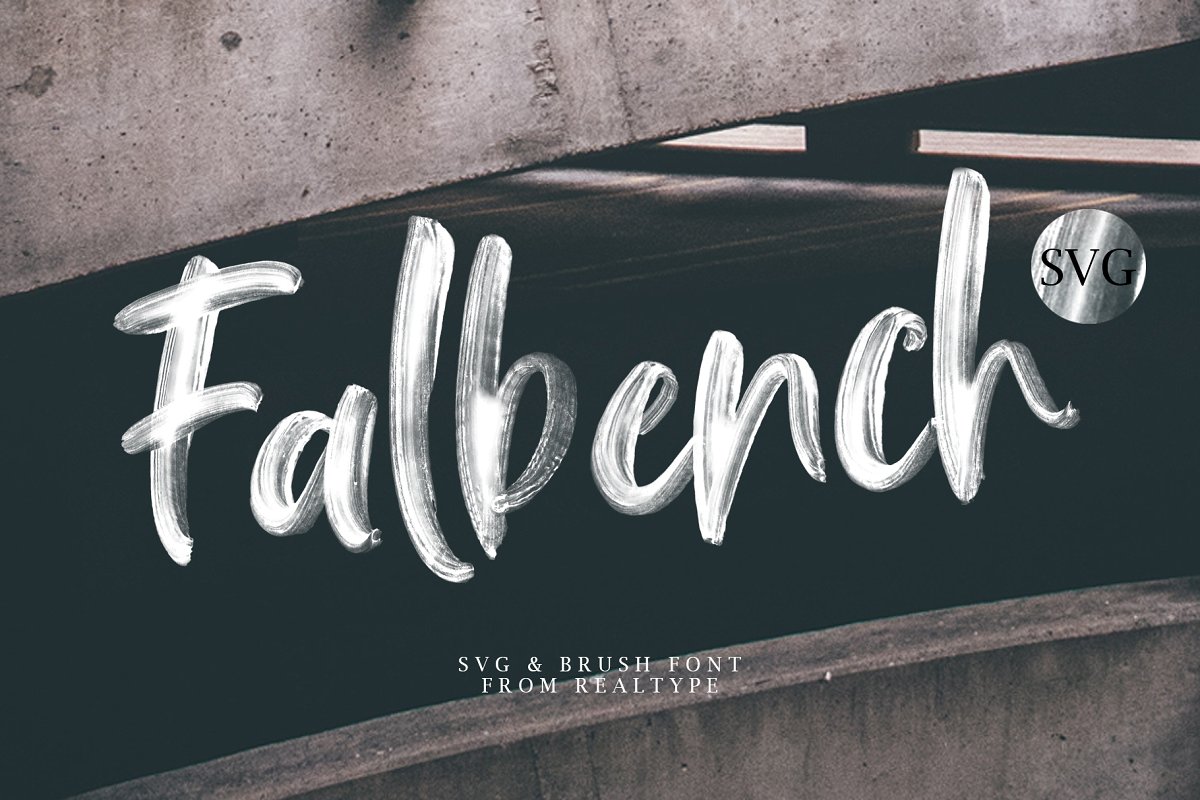
Falbench SVG Font
Falbench SVG Font is a hand-painted font package containing two Open-type fonts, SVG & Regular Brush fonts.
This SVG Opentype font keeps all the transparency and texture of the original letters painted.
The sheet will make your design project explode with character and charm, and will make your design project look realistic. Each letter and symbol is hand painted.